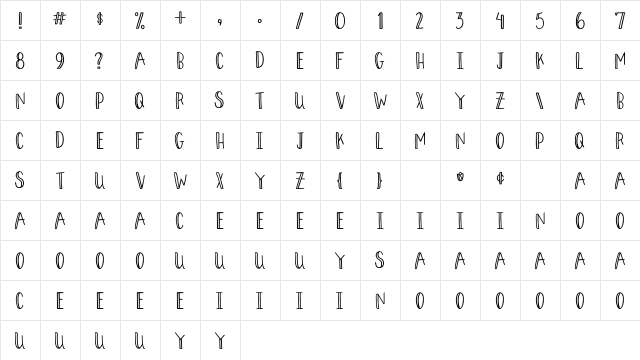
Tulip Fever Regular
| Designer | Samuel Holt |
Design Context for Tulip Fever Typeface
Tulip Fever is a composed and adaptable typeface that performs quietly and consistently across a wide range of design contexts.